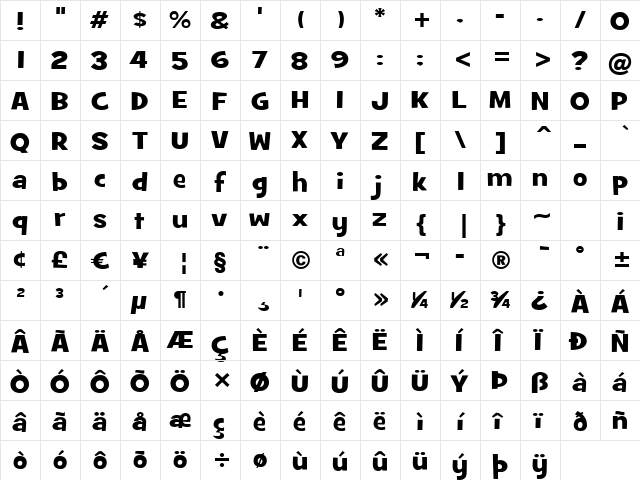
GrilledCheese BTN Wide Regular
GrilledCheese BTN Wide is a composed and adaptable typeface that performs quietly and consistently across a wide range of design contexts.